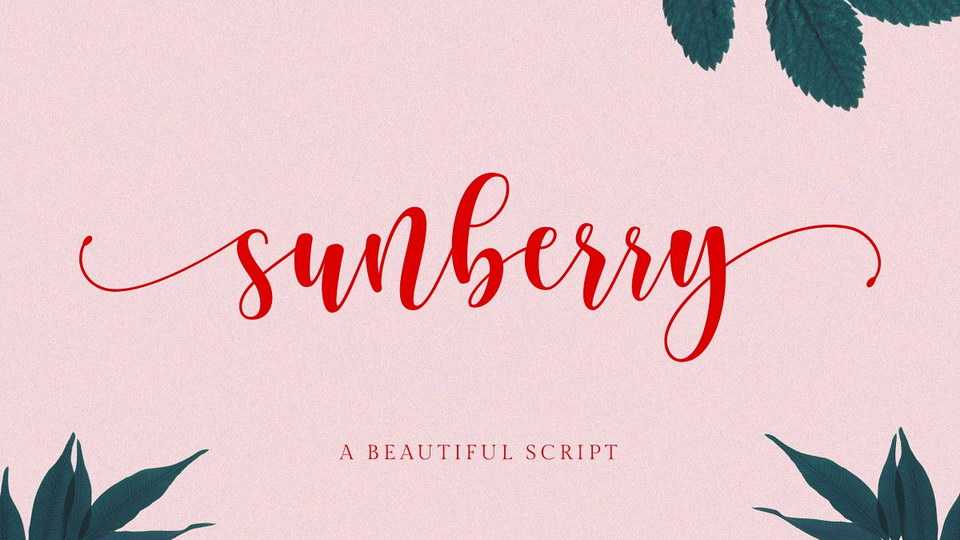
Download Sunberry font, a beautiful script with many alternative styles. Sunberry script looks natural, elegant and perfect for any extraordinary project.
Designer: Ef Studio